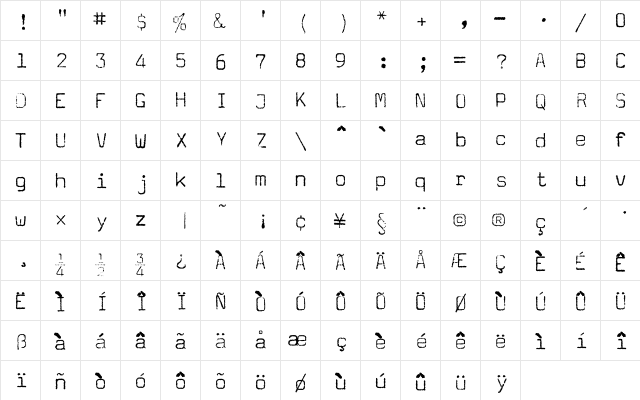
Magda Light Font Preview
Magda Light
Design Context for Magda Typeface
Magda takes a measured approach to typography — its balanced proportions and neutral character make it a reliable workhorse for both digital and print work. Its slender proportions lend an understated elegance to any composition.